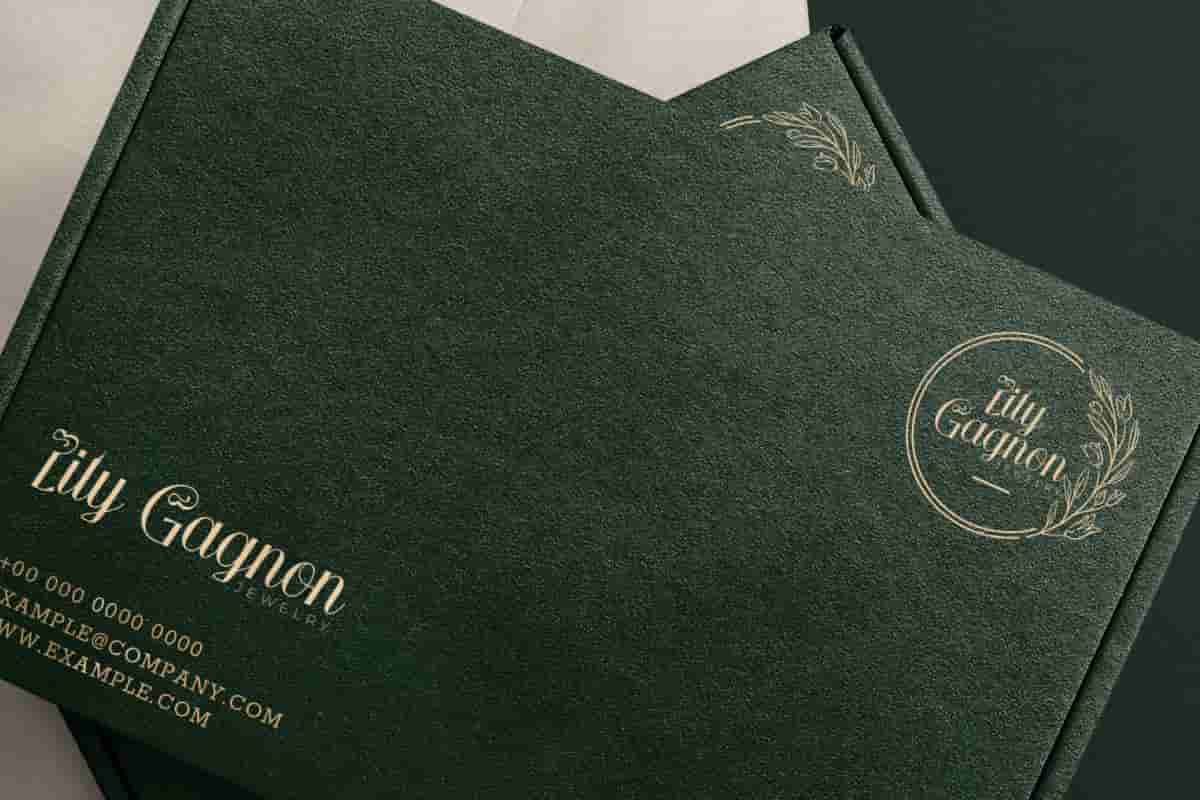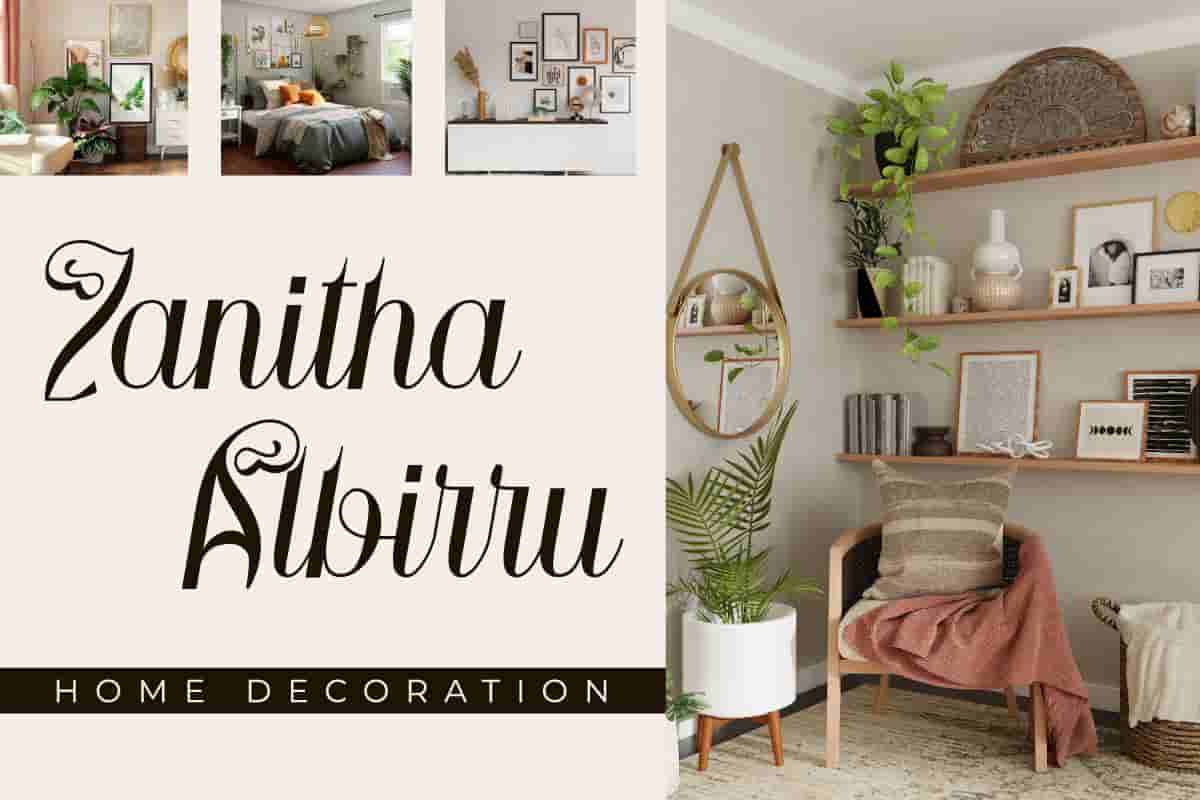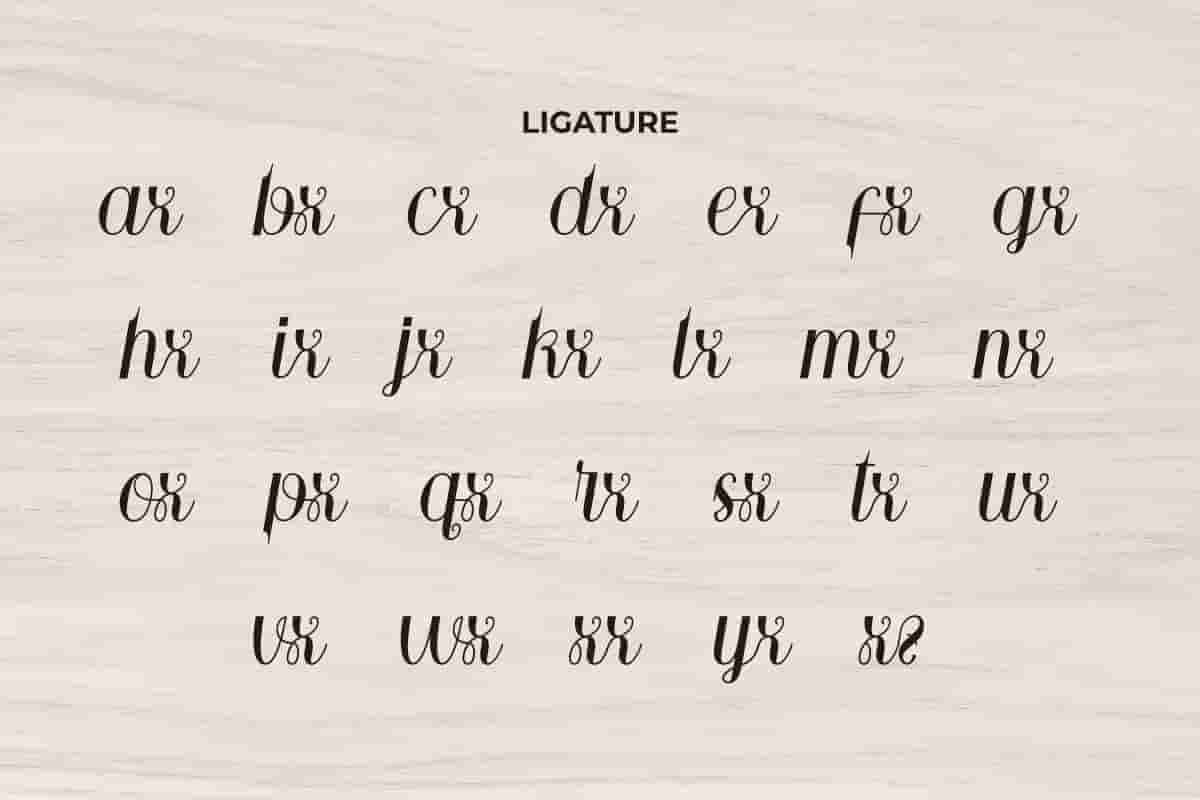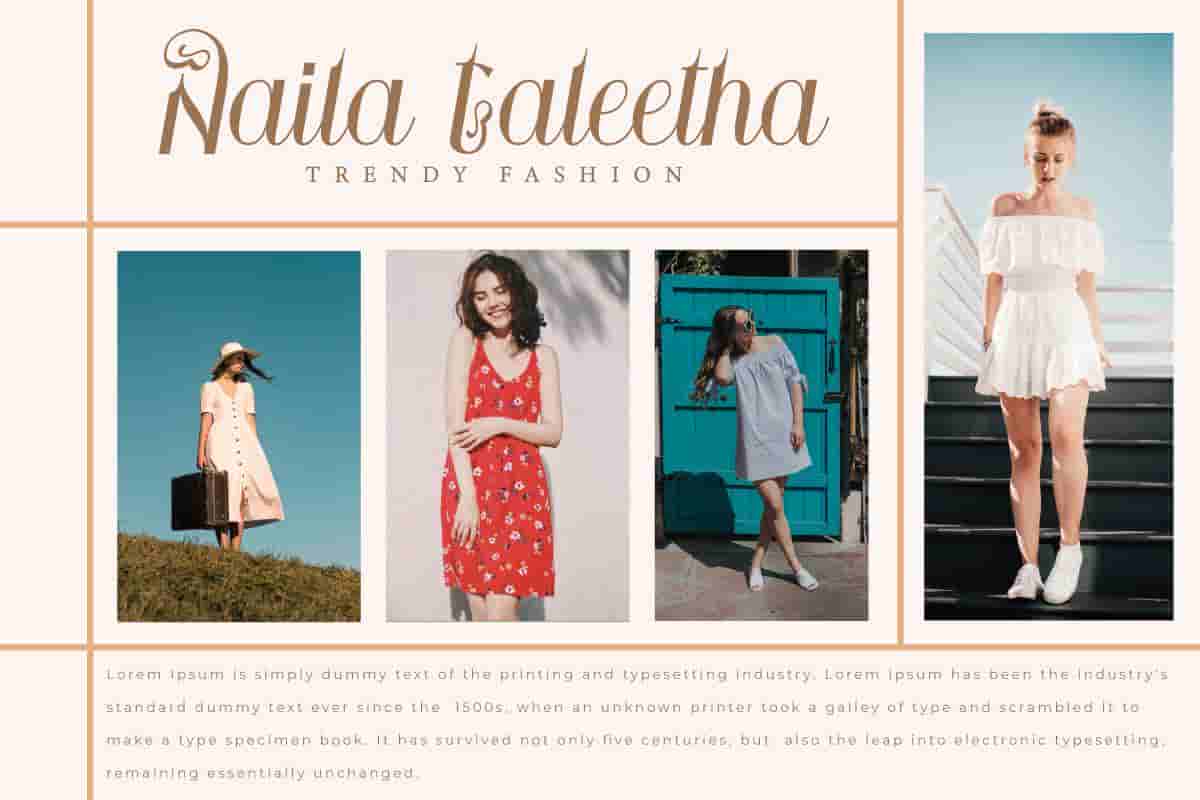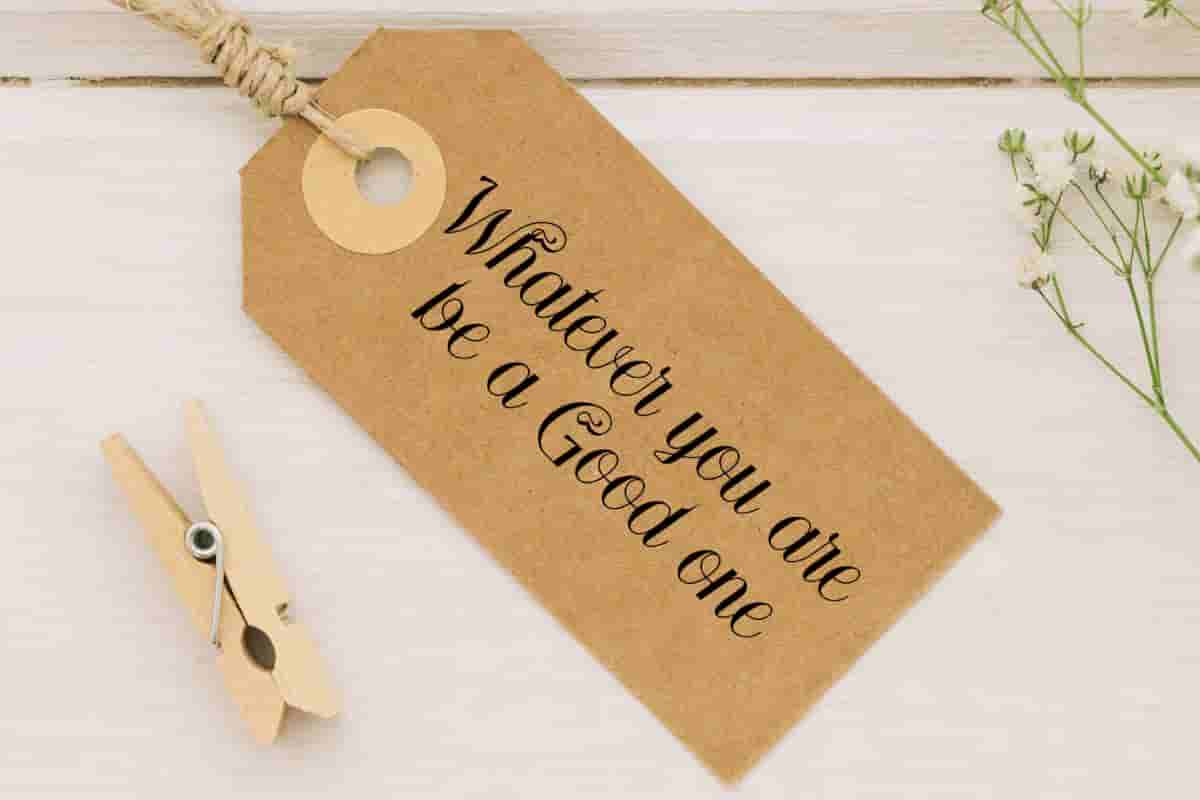
Wondersun Font Display
Wondersun Font is an aesthetic and lovely script display font with special cursive and curly shapes on the letter. You can find uniqueness in this font that won’t make you bored to use it. Use this font right away and see how fantastic it is!
Wondersun Font is an aesthetic and lovely script display font with special cursive and curly shapes on the letter. Each uppercase letter in this font has additional curvy lines in an abstract style that will add beauty to your designs, such as brand image, business card, cover, custom design, invitation, label, poster, product packaging, quote, web, and more! You can see the demo font below, input any word you want so you can see what it looks like:
Wondersun Font Display includes a full set of Uppercase and Lowercase Letters, Numerals, large range of Punctuation, and Ligature characters. This beautiful and stylish font will be suitable for various industries, such as accessories and jewelry, advertisement, beauty product, event or wedding organizer, fashion, florist, photography, printing, publishing, etc. What you get: